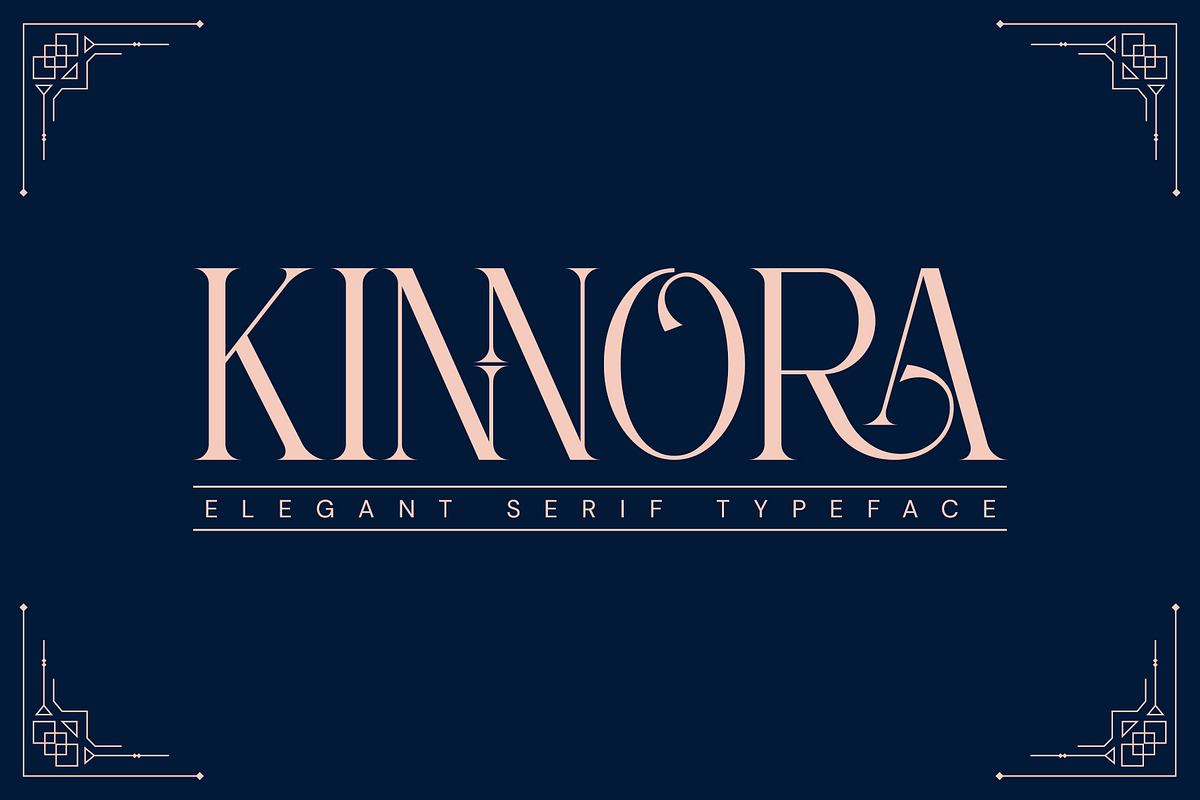
Kinnora Elegant Serif Font Free Download
Kinnora Elegant Serif Font Free Download is a refined and sophisticated typeface that blends timeless serif structure with a touch of modern luxury. Featuring elegant curves, high contrast strokes, and delicate detailing, Kinnora is perfect for upscale branding, wedding invitations, editorial designs, fashion lookbooks, and premium product packaging.
Its graceful presence makes it ideal for both headlines and body text, offering versatility without sacrificing style. Kinnora’s poised and polished appearance adds a sense of luxury and professionalism to any design project.